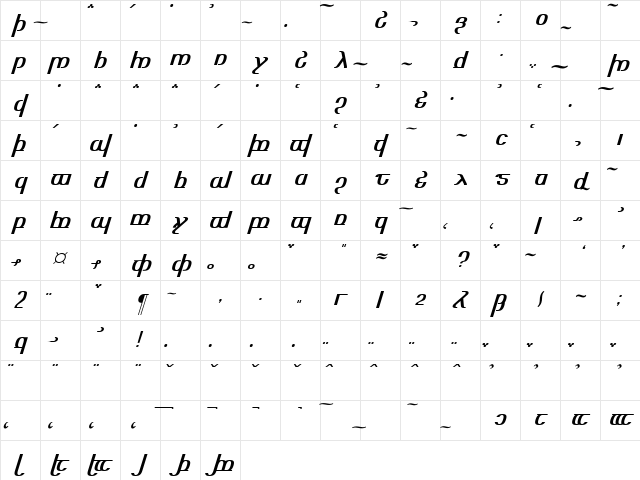
TengwarOptimeDiagon Regular
| Foundry | Peter Wiegel |
| Designer | Peter Wiegel |
Design Context for TengwarOptimeDiagon Typeface
TengwarOptimeDiagon takes a measured approach to typography — its balanced proportions and neutral character make it a reliable workhorse for both digital and print work.